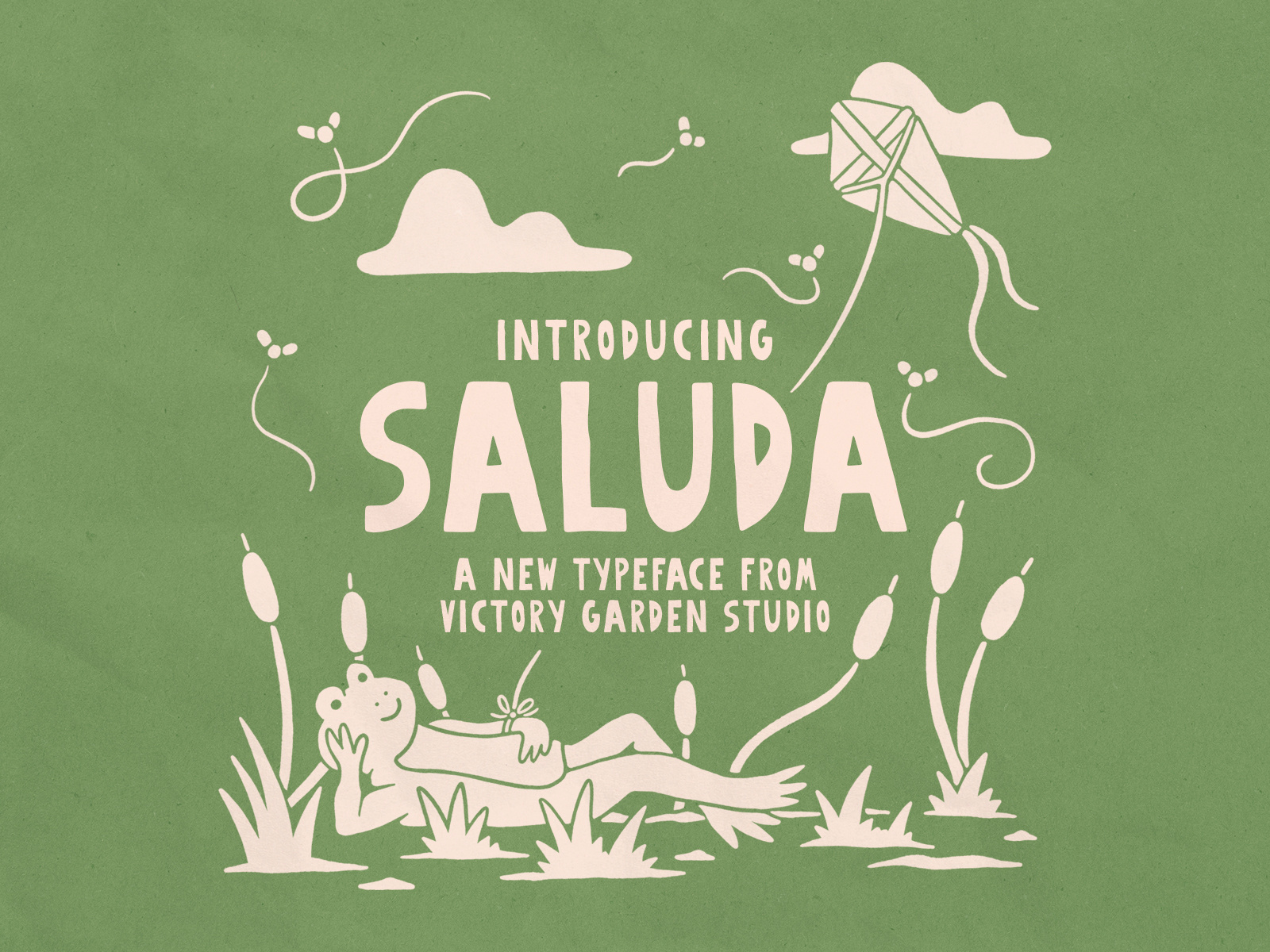
Saluda Typeface
SALUDA is here and available for FREE for a limited time at victorygardenstudio(dot)com! I’m so excited to share this new hand made quirky font. Check out our other selection of hand made fonts as well, and go be creative 🌿